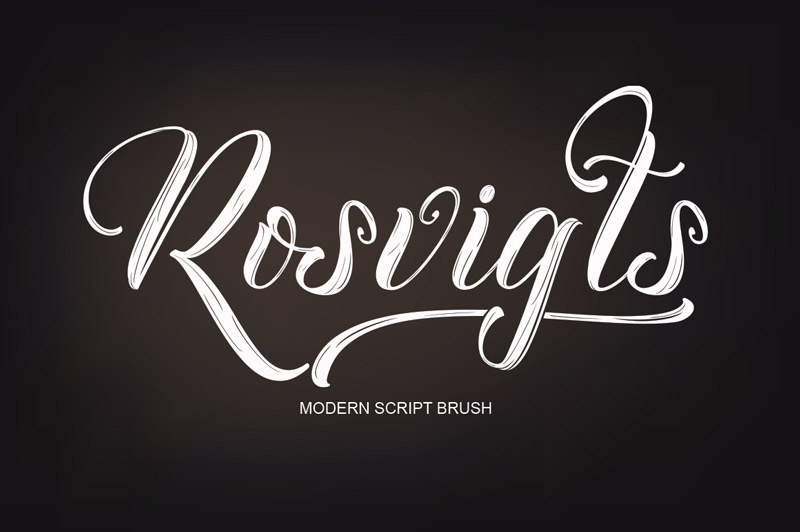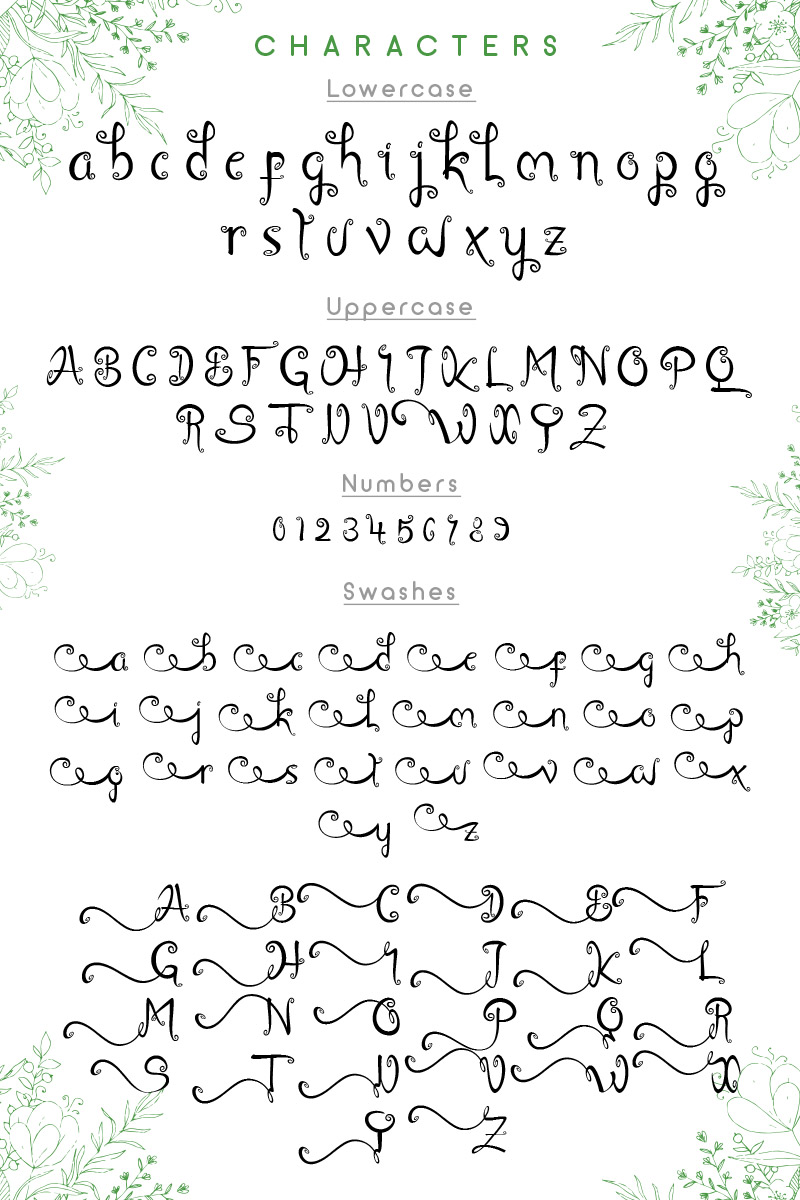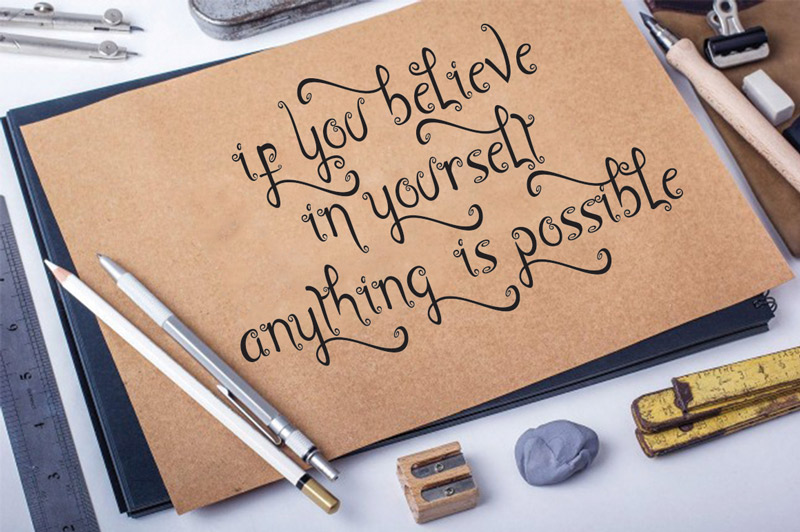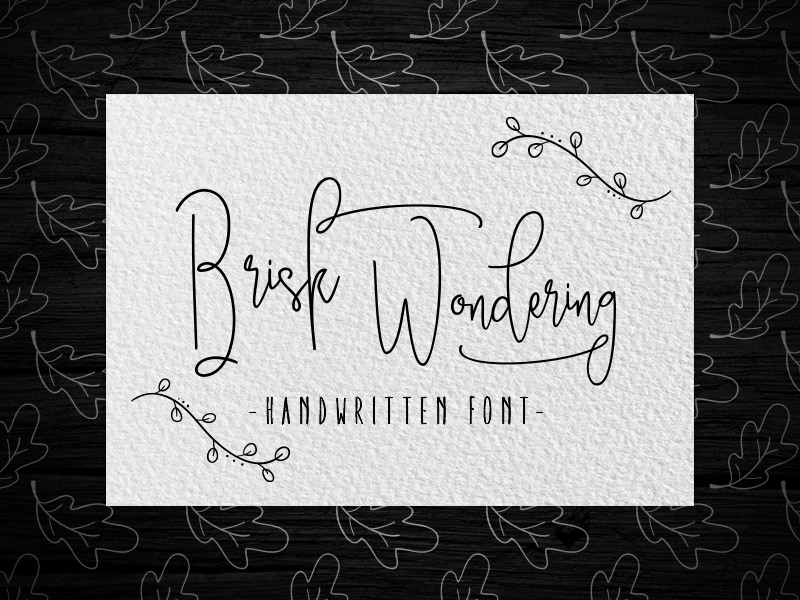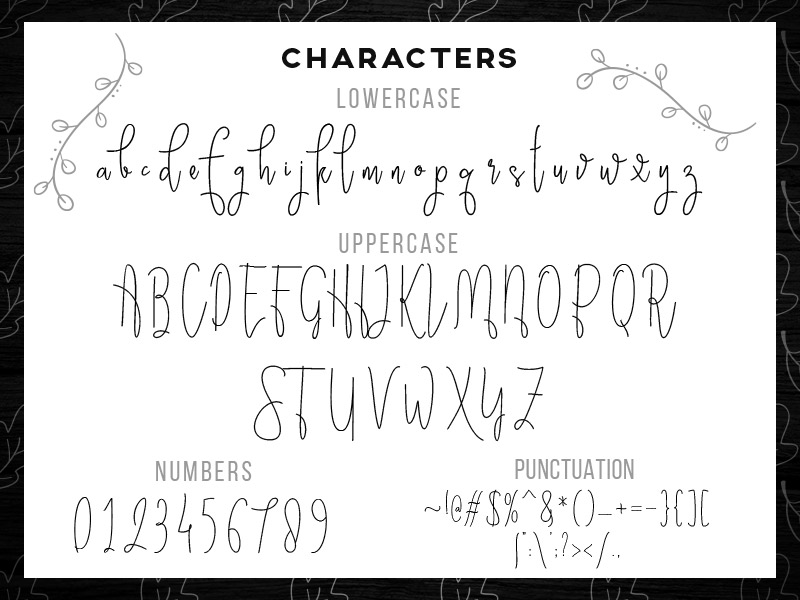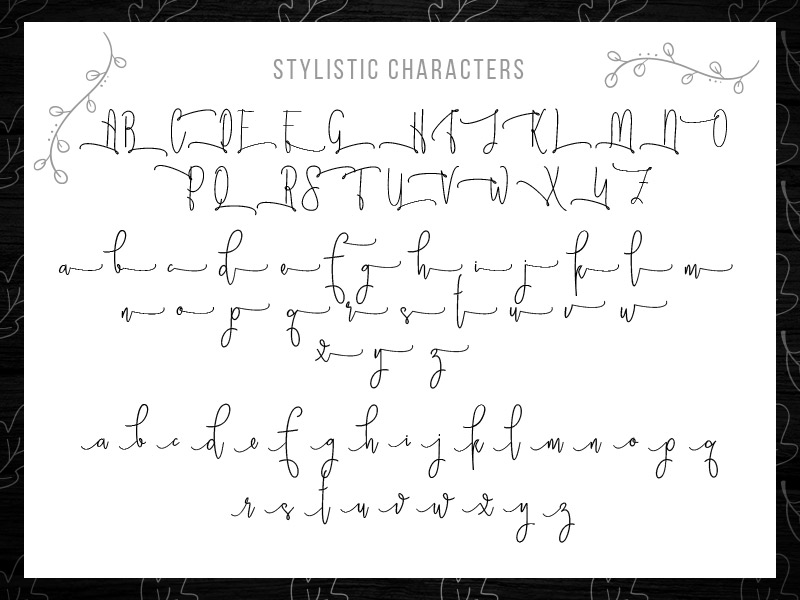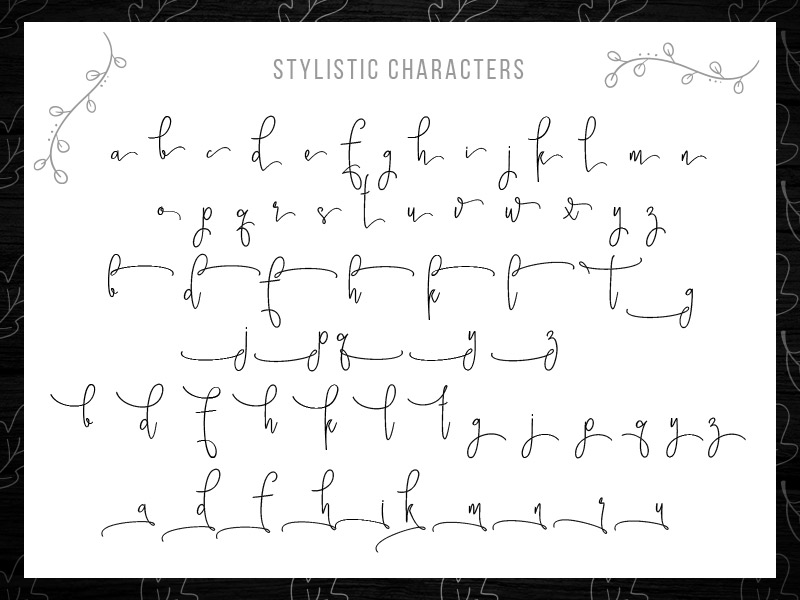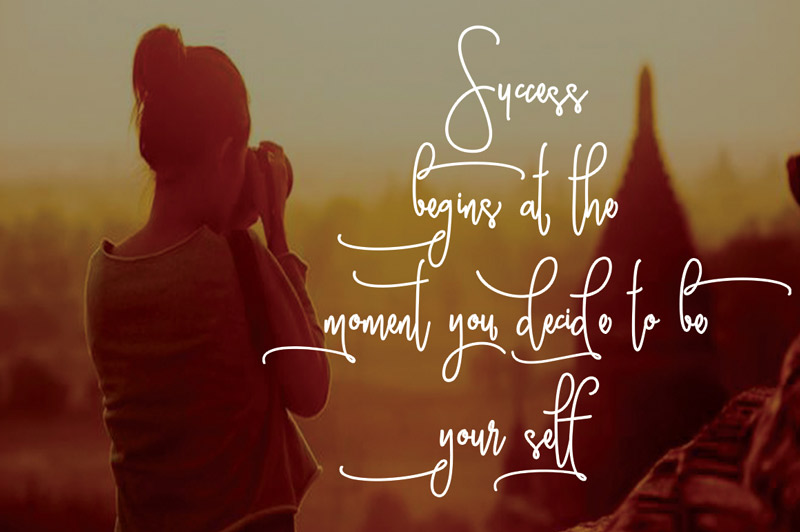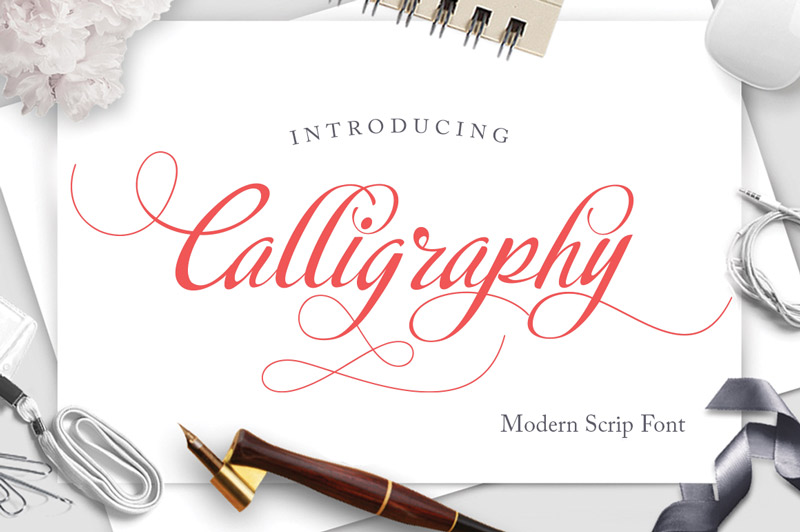
Steller Bundle
Unlock incredible value with the Steller Bundle fonts, now available for an unbelievable price of just $11! This exclusive design bundle, curated by Moriztype, offers a fantastic collection of 13 premium fonts. These fonts are the perfect touch for any current project you may have. Imagine elevating your designs with fonts like Amsterdam, Brisk Wondering, Everbest, and Master Faith. These are just a few of the gems you’ll find within this amazing package. Considering the retail price of all these fonts would normally be around $1200, this bundle is an absolute steal. It truly has all the ingredients you need to significantly improve the quality and appeal of your creative work.
Discover the Steller Bundle Fonts Advantage
What’s new this year with the Steller Bundle fonts? We’ve managed to increase the font count exclusively for our Graphicloot friends. We’ve added the Rosvigts font and the entire Religion trio font family. This means you’re not just getting 11 fonts; you’re getting a total of 13 high-quality fonts for the same tiny price of $11! Don’t miss out on this opportunity to expand your font library with such a diverse and professional selection. This is a chance to grab premium assets without breaking the bank.
The Steller Bundle fonts are designed to be versatile. Whether you’re working on branding, social media graphics, invitations, or website design, these fonts will add that professional polish. The included fonts offer a range of styles, from elegant serifs to modern sans-serifs, ensuring you have the perfect typeface for every mood and message. This bundle is a smart investment for any designer looking to enhance their toolkit.
• 13 premium fonts included.
• Perfect for a wide range of design projects.